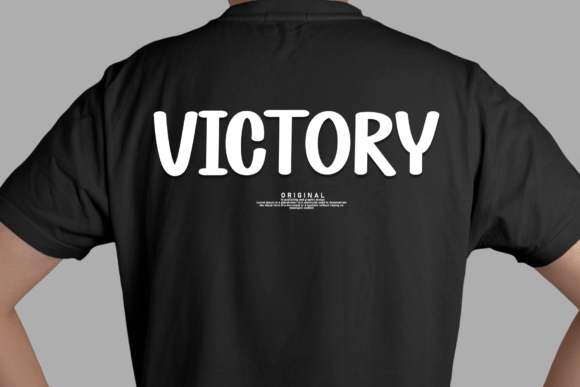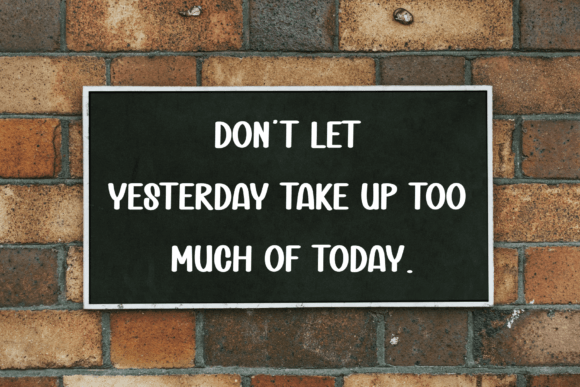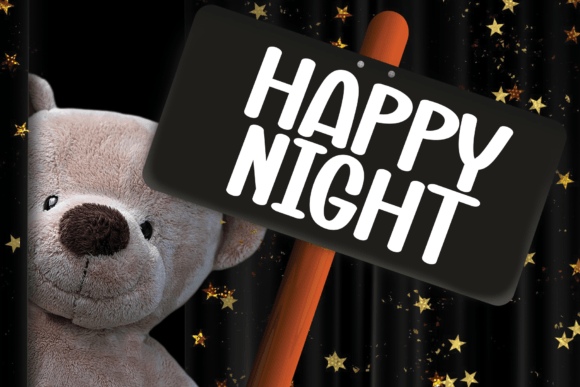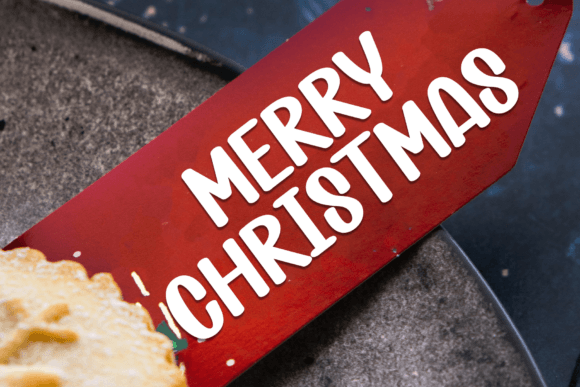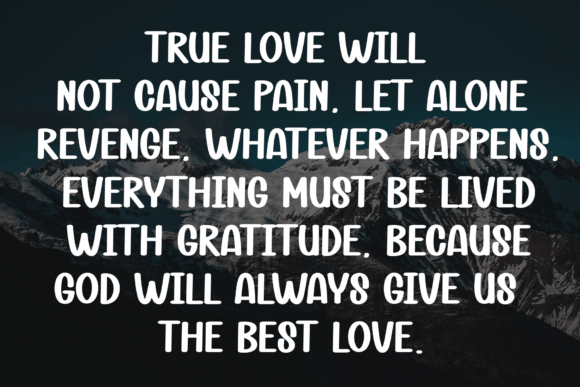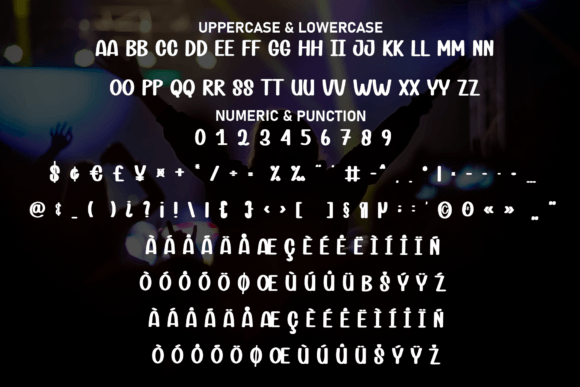
Introduction to Nightclub Font Font
Fonts play a crucial role in design, and the Nightclub Font font is a typeface that brings both character and versatility to any project. Whether you’re working on a branding project, a website, or a print design, the Nightclub Font font offers a unique style that can elevate your work.
Introducing a charming and amicable handwritten display font that encapsulates warmth and affability.
This delightful font breathes life into wedding invitations or cards, infusing them with a vibrant, playful touch that elegantly transcends the mundane Immerse your designs in delightful whimsy with this enchantingly fun font and watch them spring to life.
Key Features of Nightclub Font Font
Why Choose Nightclub Font Font?
The Nightclub Font font is more than just a typeface – it’s a design tool that helps you communicate your message with style and clarity. Its unique character set and versatile design make it suitable for a wide range of applications, from elegant invitations to bold headlines.
With its carefully crafted letterforms and balanced proportions, the Nightclub Font font ensures readability and visual appeal across all mediums.
What makes Nightclub Font font special?
The Nightclub Font font stands out with its unique design, exceptional readability, and versatility across various design applications.